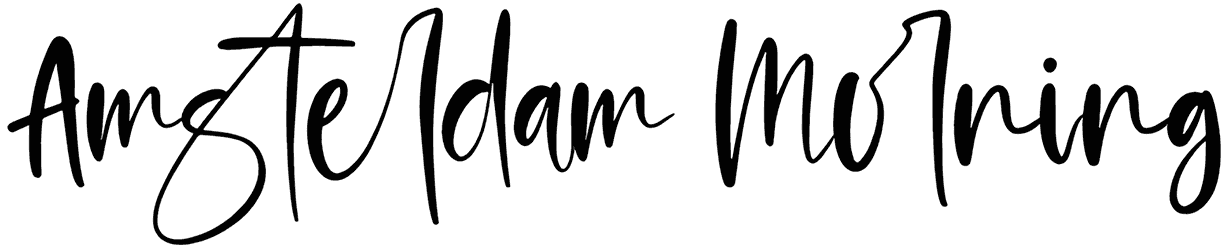
Amsterdam Morning Font
Amsterdam Morning’s two styles are suggested to designers or product owners who need solutions to make their designs look more luxurious. This handwritten font helps you make unlimited changes for your creative needs and gives your brand a rich vibe.
So if you need a font with a personal touch to perform grand packages or an exciting music album, the illegibility of Amsterdam Morning can create a sense of mystery in your writing that will entice the reader to explore it.